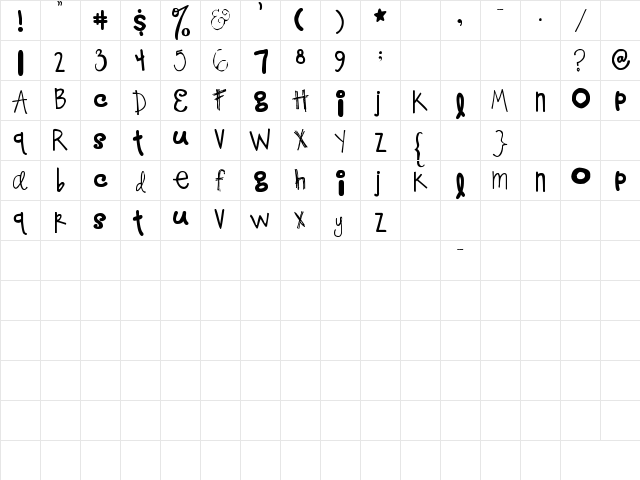
sp purkalator Regular
Design Context for sp purkalator Typeface
sp purkalator is a composed and adaptable typeface that performs quietly and consistently across a wide range of design contexts.